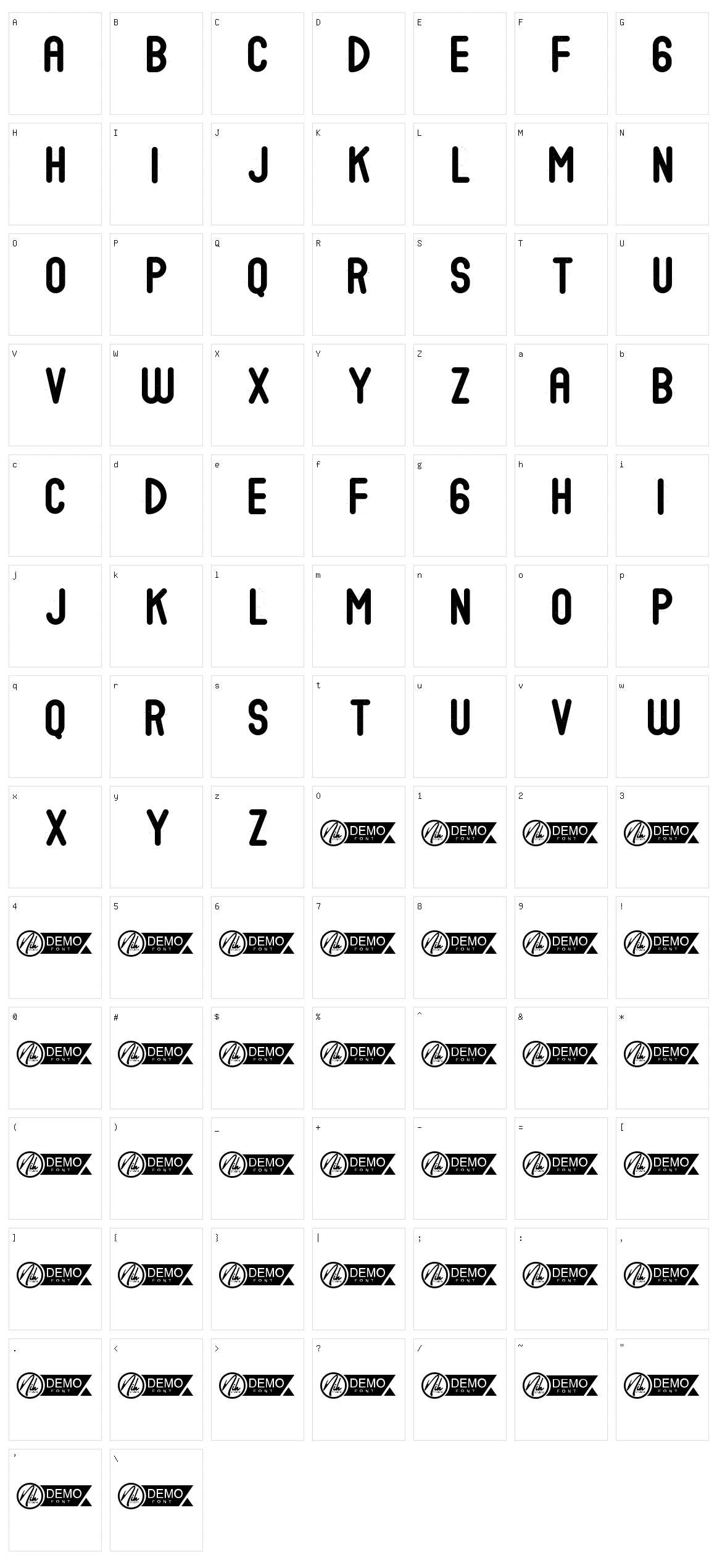
The free font Dusty Hotel is carefully designed by NihStudio, showcasing a thoughtful balance of creativity and usability and falls under the Eroded font style. When you download the ZIP file, it contains only 81.61 KB of font files, making it lightweight and quick to download. Please review the license details below to understand permitted usage and distribution rights. If license information is not available, we recommend using this font for personal projects only or contacting the author directly for commercial usage permissions.